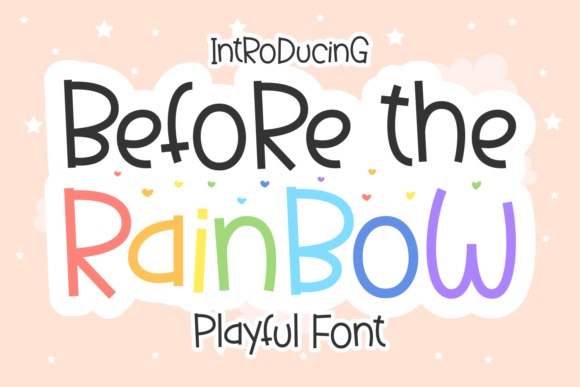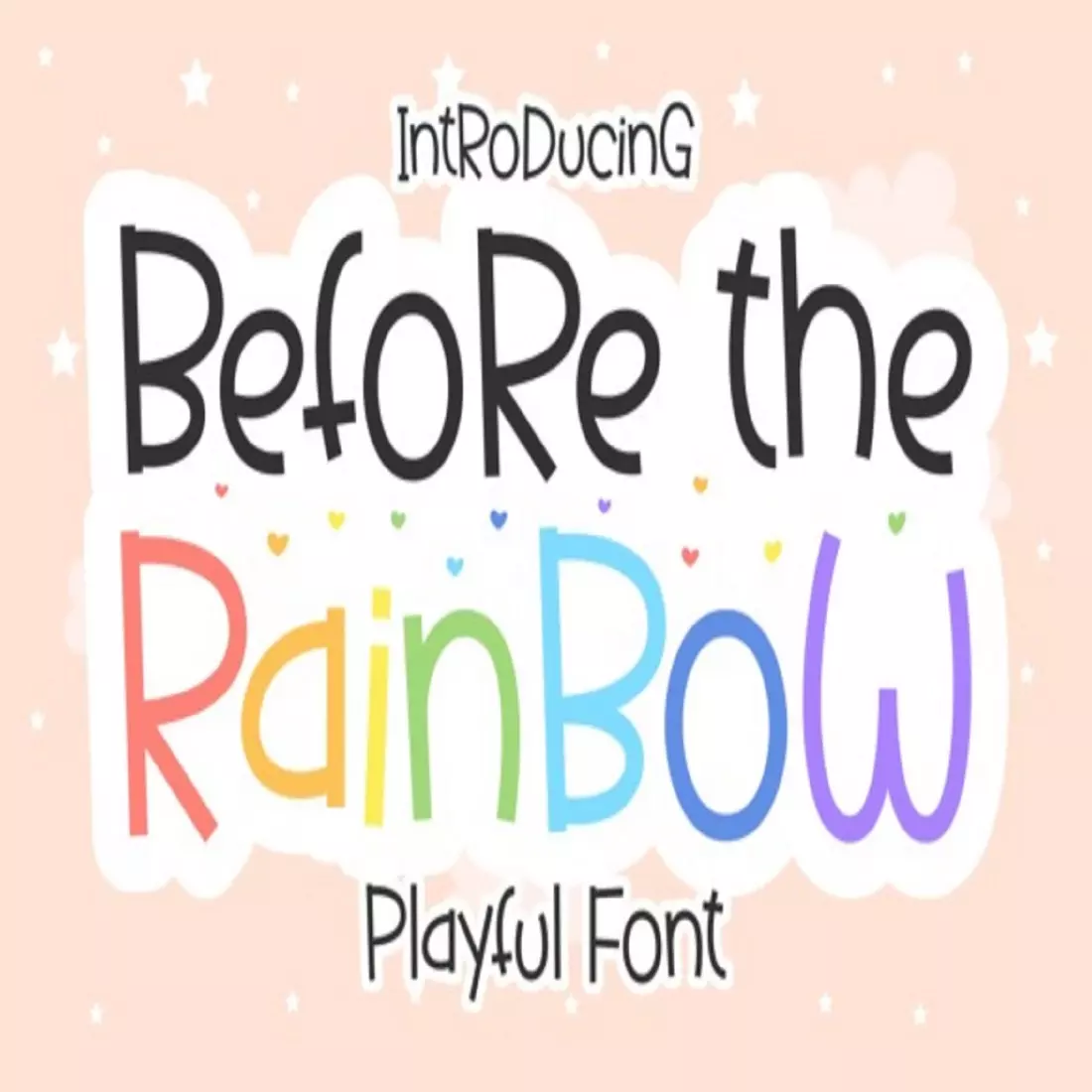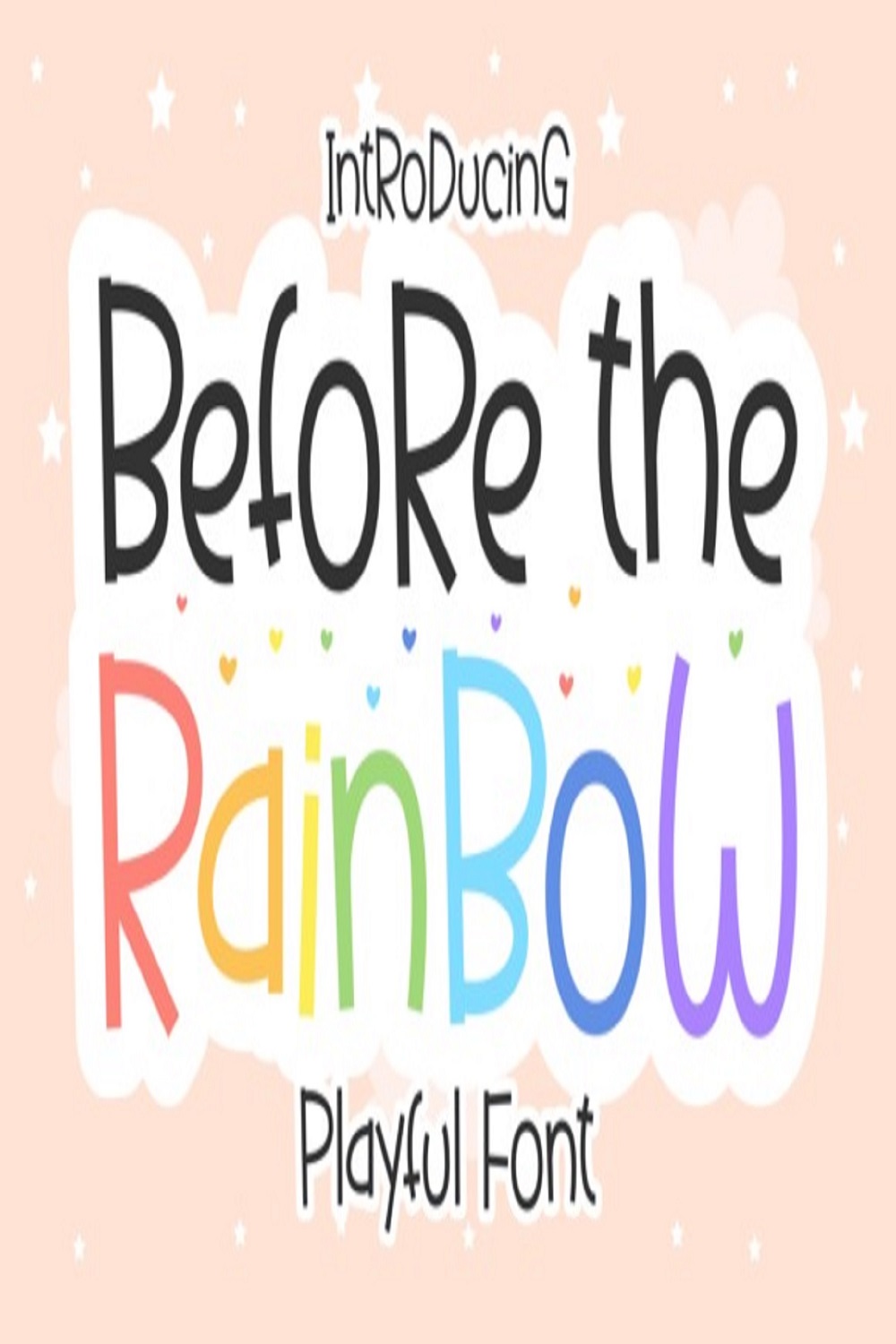
Before the Rainbow is a playful and quirky display font that will lighten up each of your designs. This font is perfect for children-themed designs, especially when combined with bright colors.